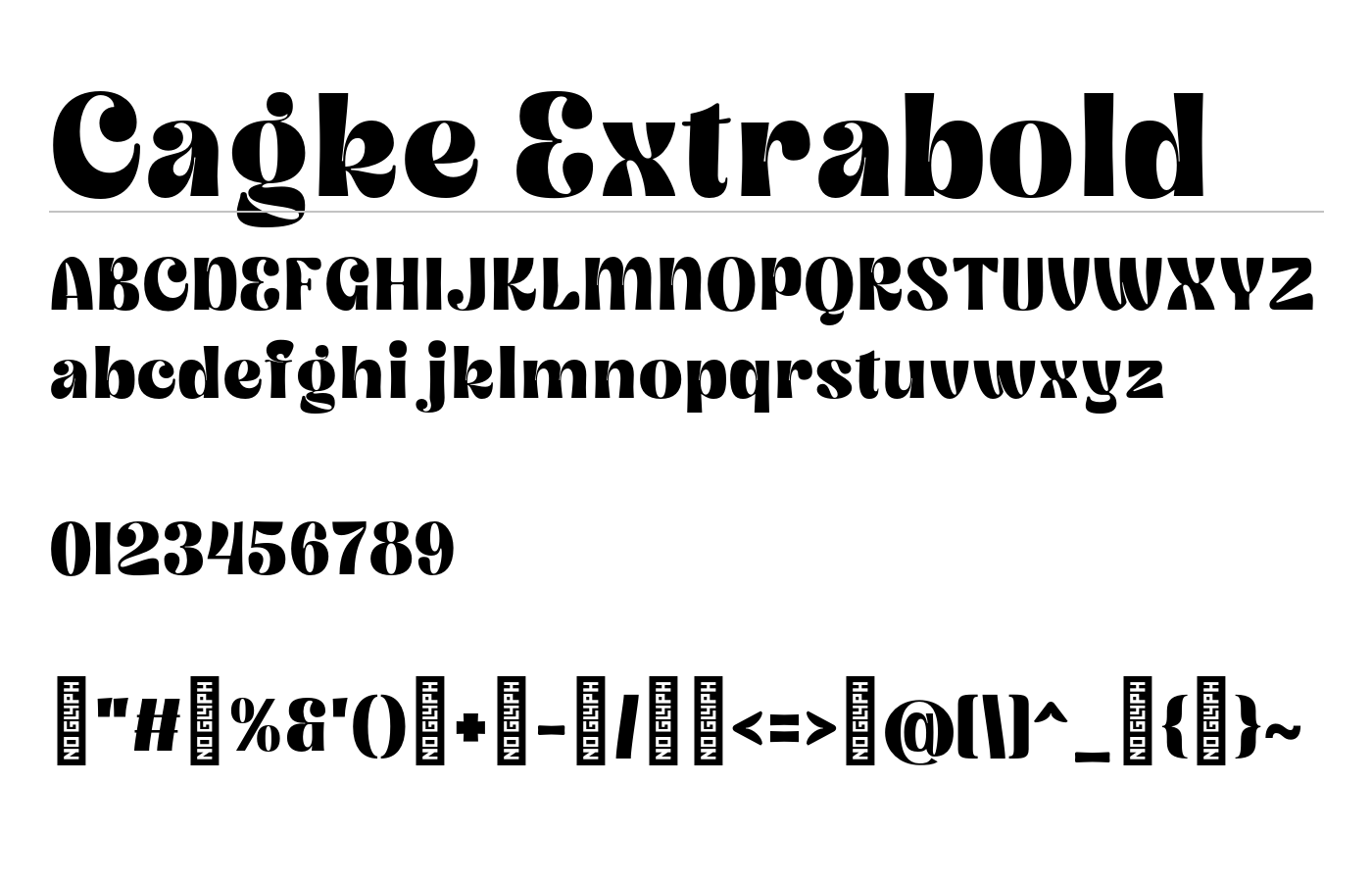
Cagke is a bold, eye-catching serif font with a playful and artistic touch, featuring thick, high-contrast strokes and unique, decorative letterforms that add character. Its strong presence and distinct style make it ideal for headlines, logos, and branding where a bold yet whimsical impact is desired. This font works especially well in creative and fashion contexts, bringing a sense of fun and sophistication.
Cagke Font
About Cagke Font
| Font family | Cagke Font |
| Designer | Ardyana Putra |
| Font subfamily | ExtraBold |